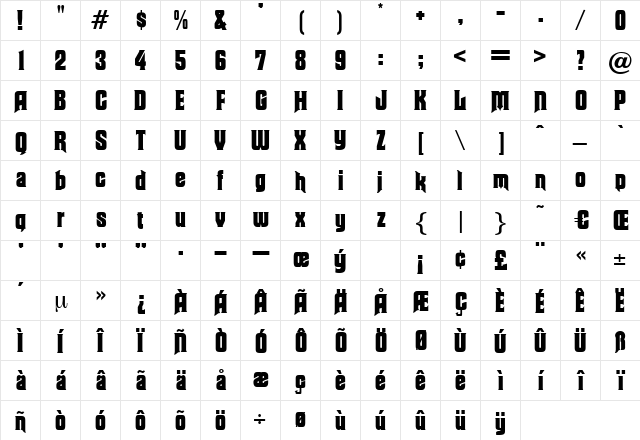
Hamlet Regular
Design Context for Hamlet
Hamlet is a composed and adaptable typeface that performs quietly and consistently across a wide range of design contexts.